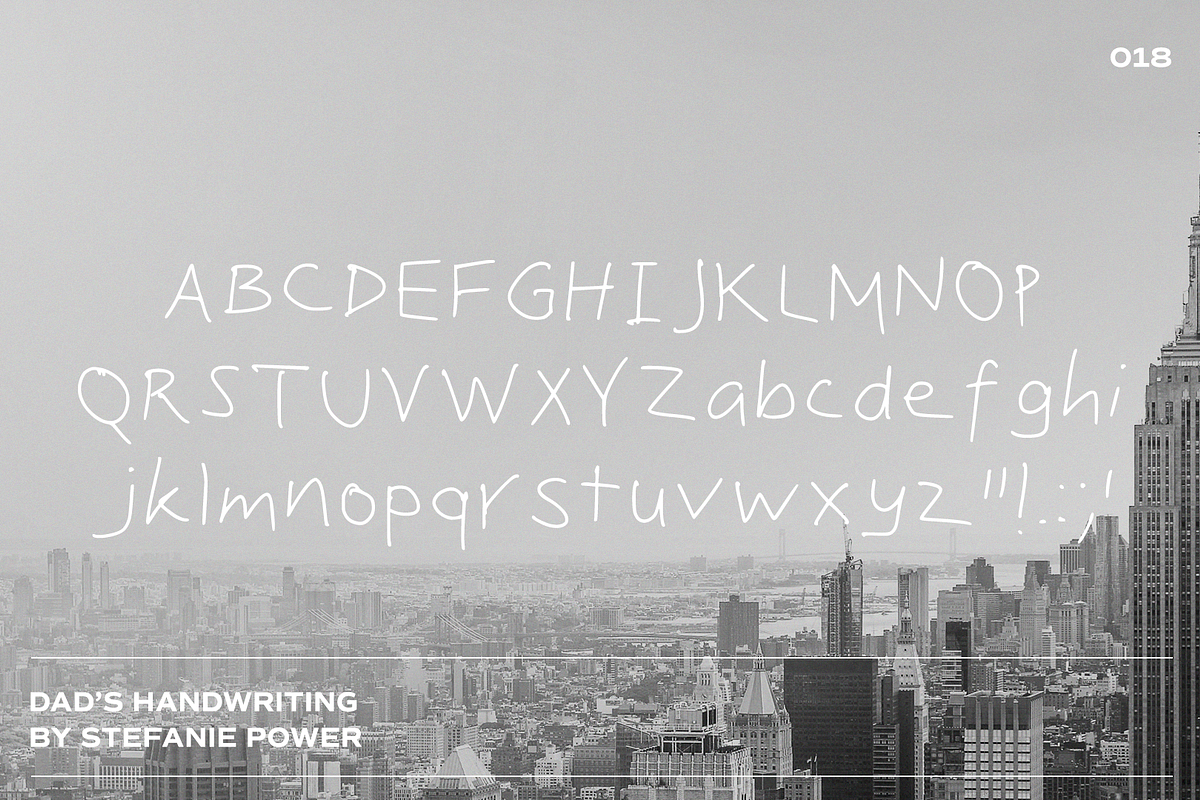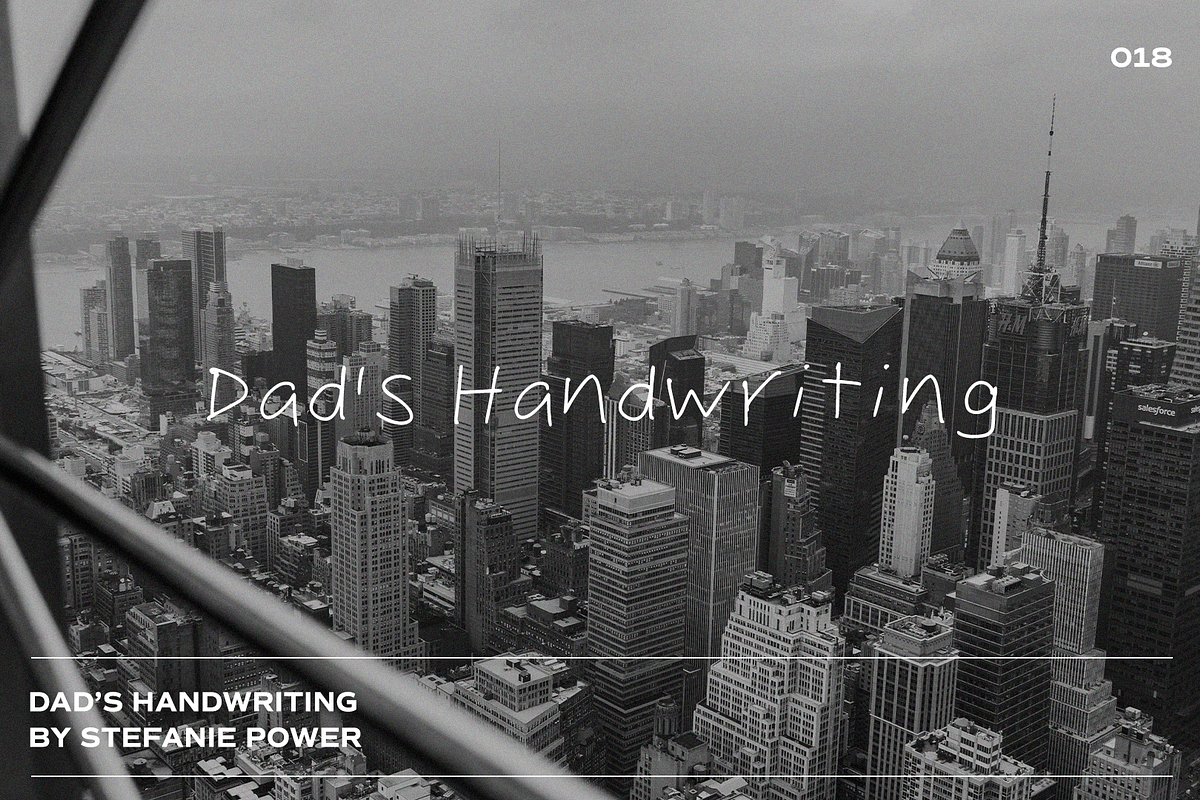
Dad's Handwriting | Font
Introducing 'Dad's Handwriting' - a minimal and basic handwritten font
Dad's Handwriting • A handwritten script font containing upper & lowercase characters and a range of punctuation and numbers.